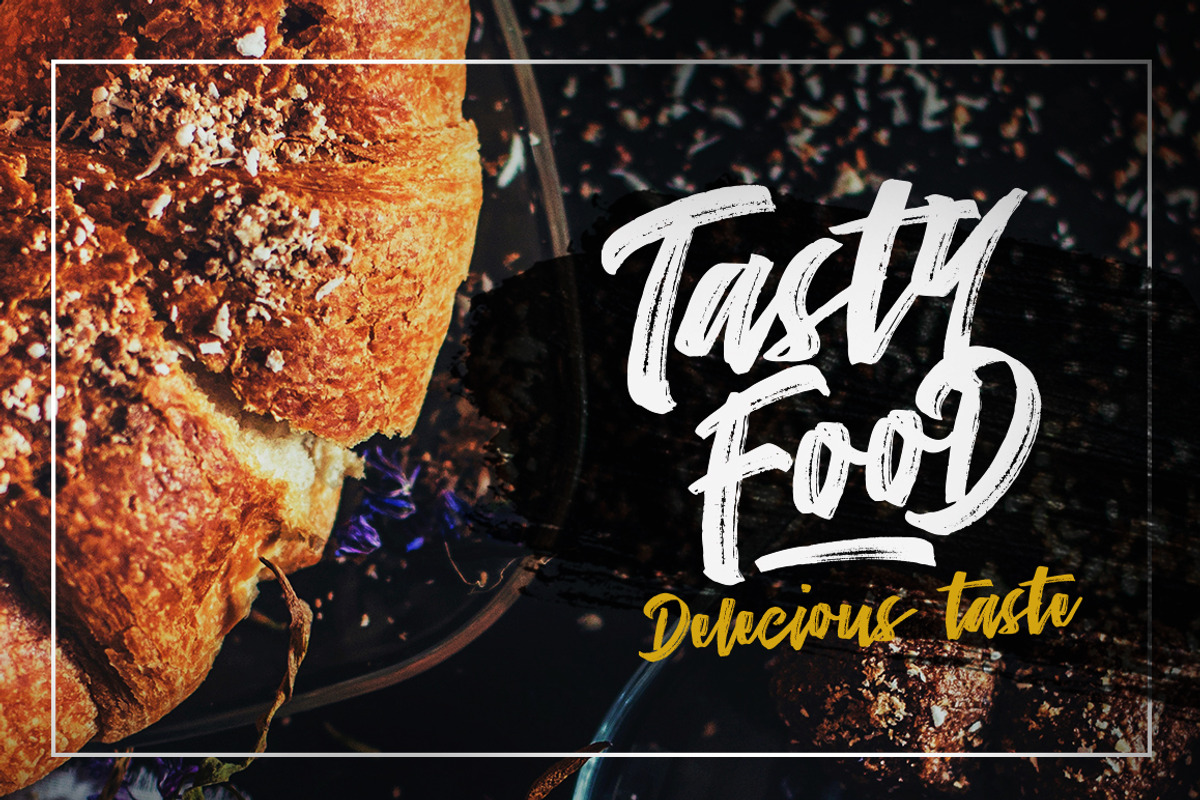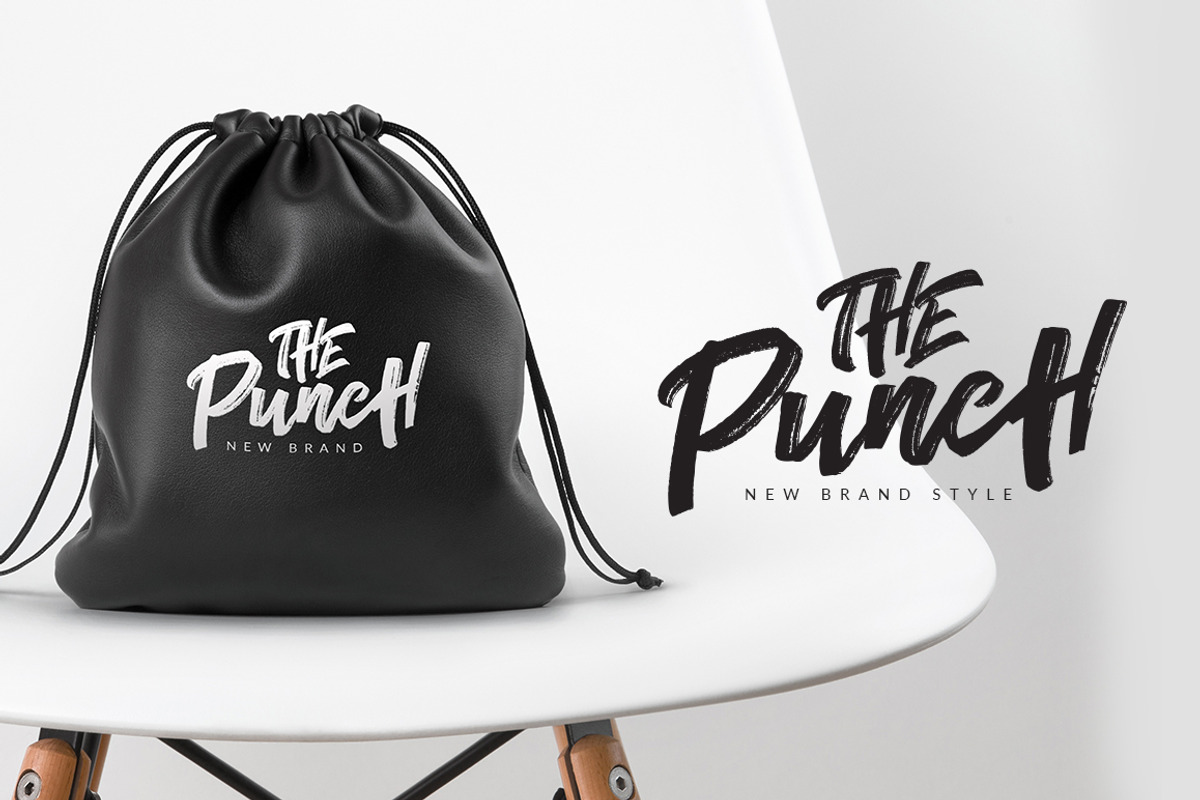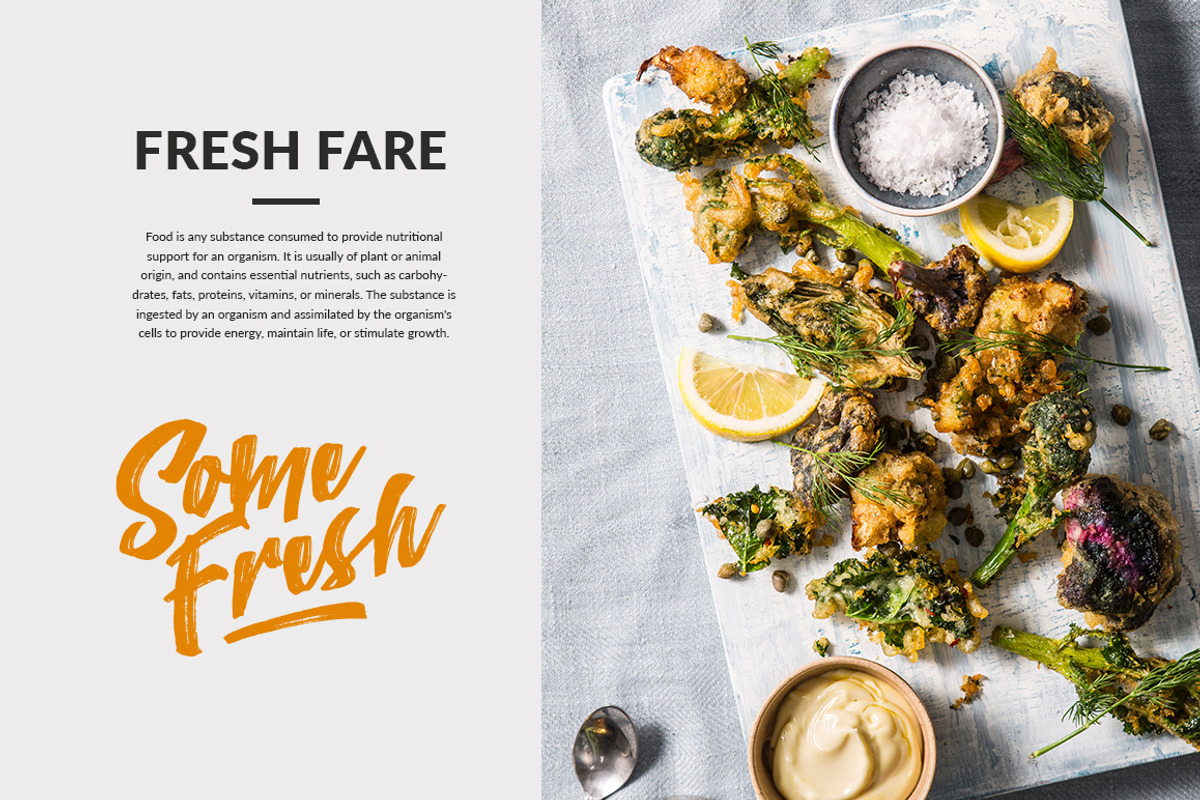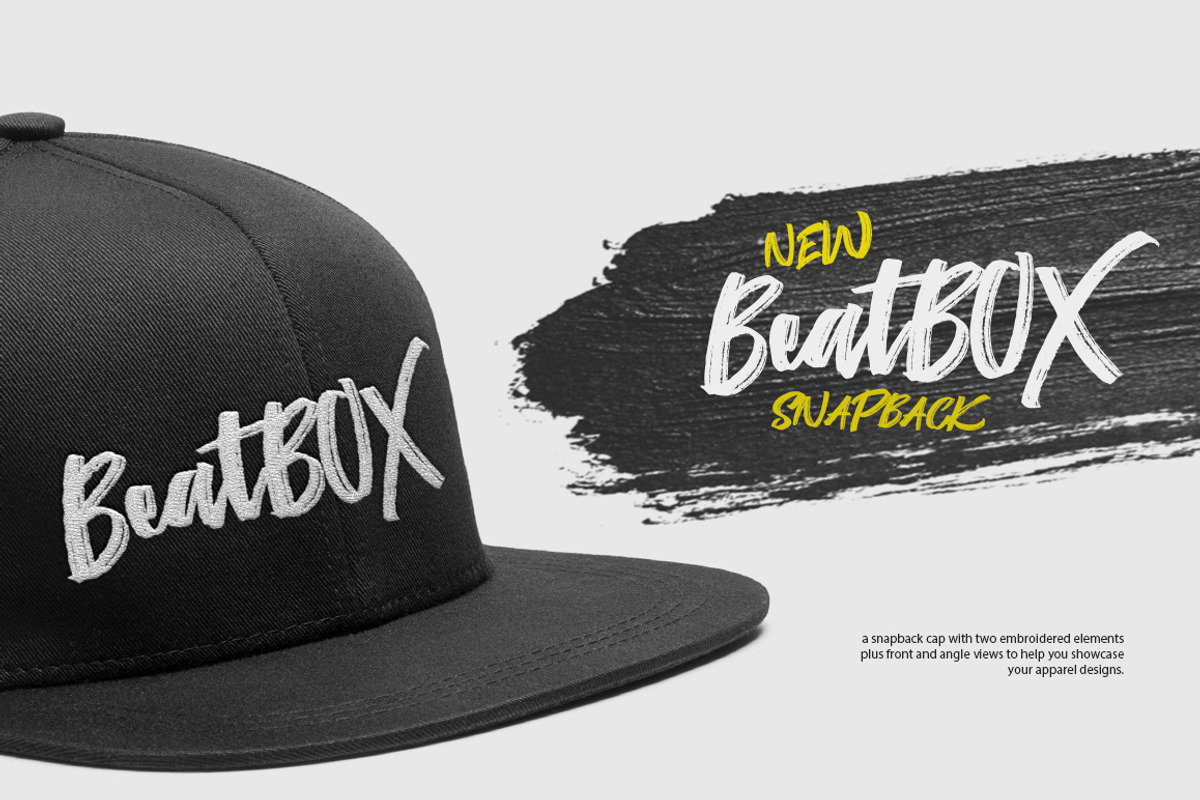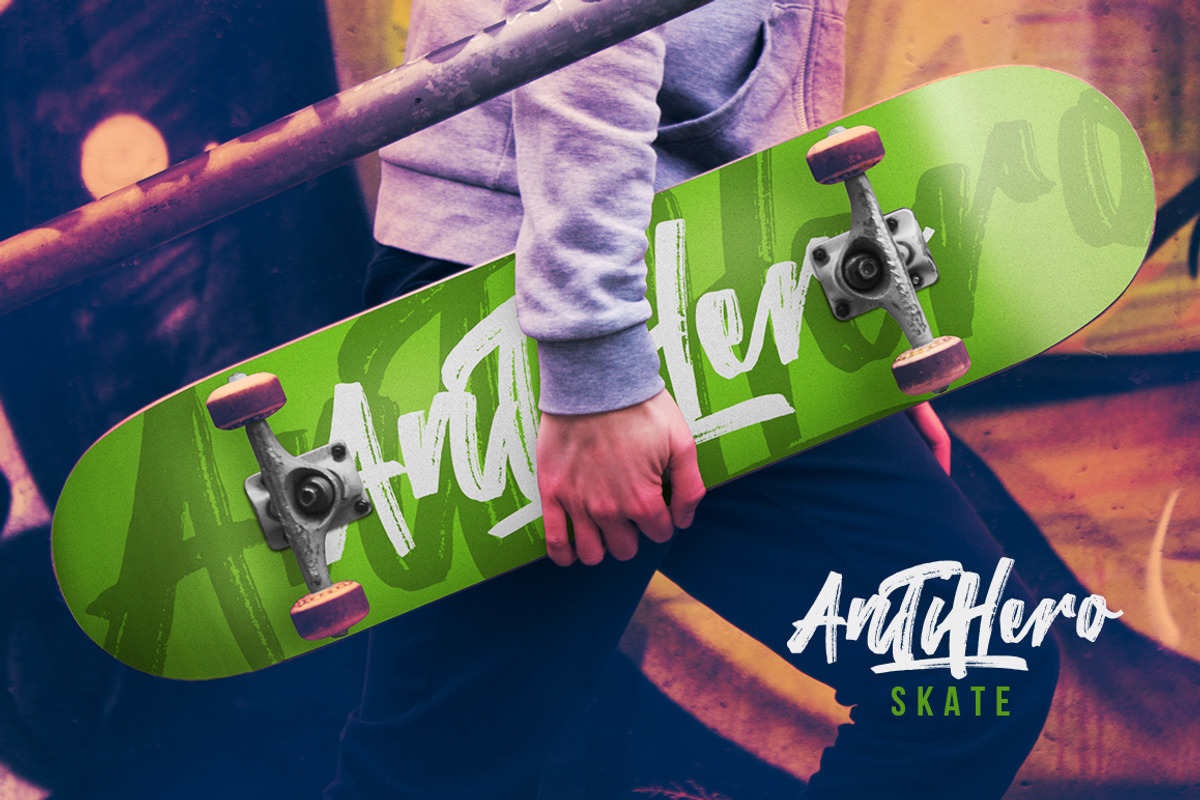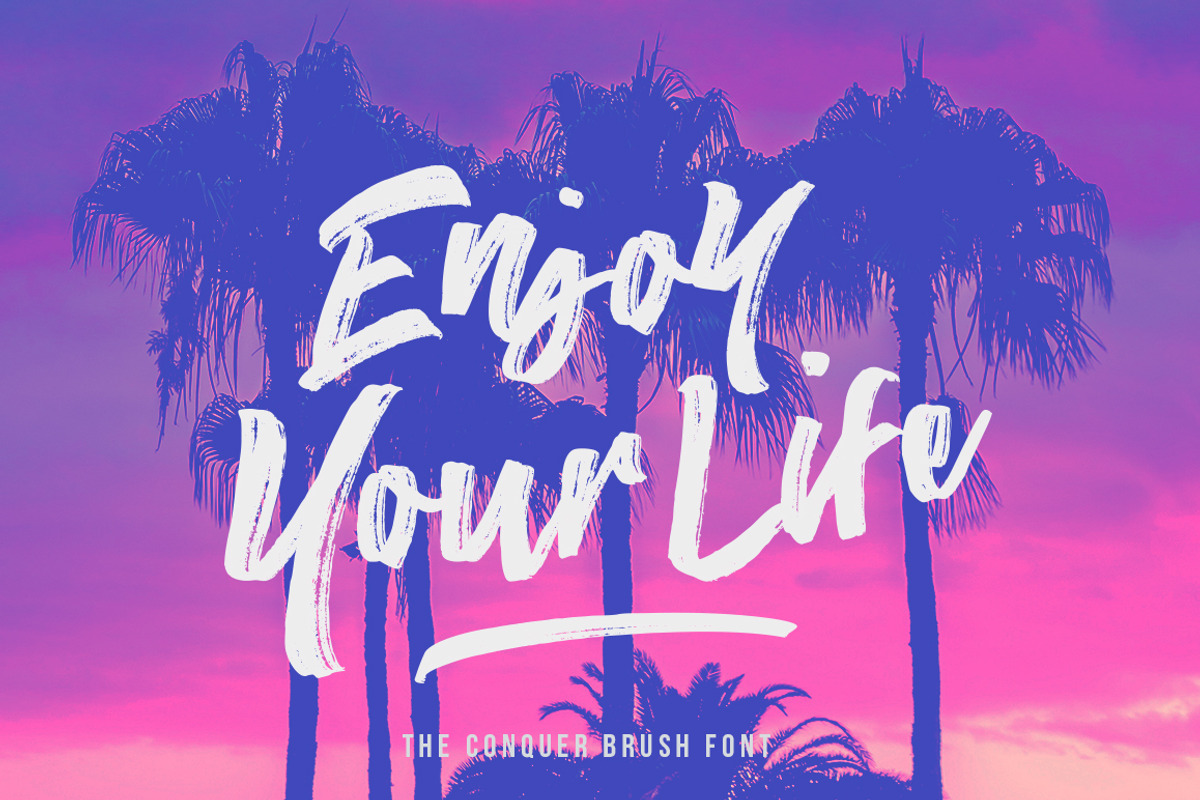
The Conquer Brush Typeface
The Conquer Brush Typeface , with authentic dry brush imperfections, and a very bouncy baseline It has a perfectly paired complimentary marker font , and a super handy set of bonus Swash. Ideal for logos, handwritten quotes, product packaging, header, poster, merchandise, social media & greeting cards.